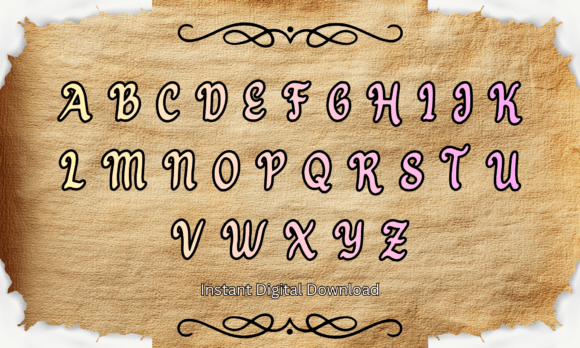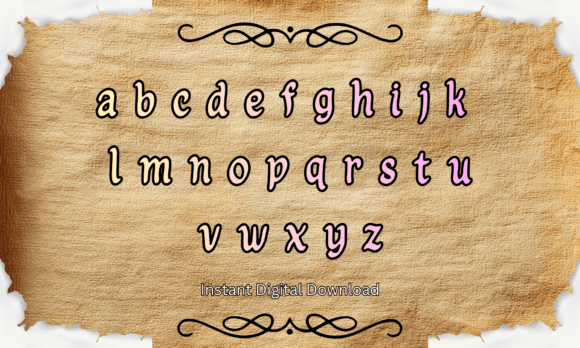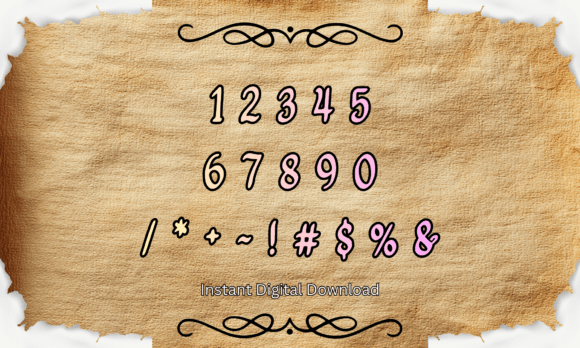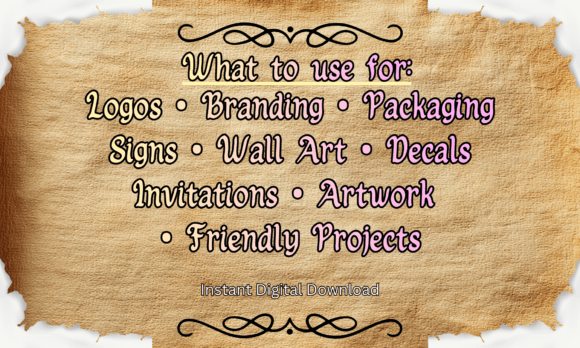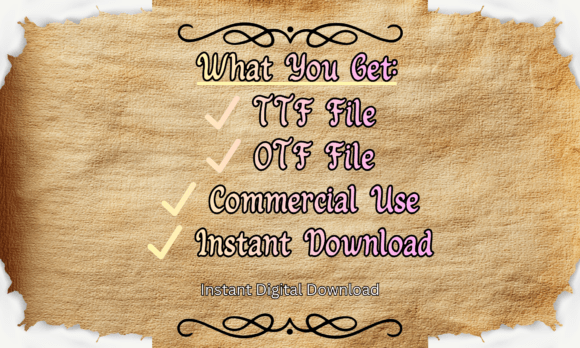
Bring a Touch of Vintage Charm to Your Designs with Antique Scroll Font
Are you looking for a font that can add a soft, vintage charm to your designs? Look no further than Antique Scroll, a playful yet elegant handwritten display font inspired by aged parchment and classic scroll lettering. With its rounded, flowing strokes and gentle curves, this font is perfect for a wide range of creative projects, from logos and branding to stickers, decals, and social media graphics.
Antique Scroll is a versatile font that can be used for a wide range of creative projects, including:
- Logos & branding
- Stickers & decals
- Packaging
- Small business designs
- Invitations
- Wall art
- Cute aesthetic projects
- Handmade product labels
Whether you’re a designer, crafter, or small business owner, Antique Scroll can help you add a touch of vintage charm to your designs.
Font Style
Antique Scroll is a unique font that blends antique elegance with modern, cute aesthetics. Its key features include:
- Vintage parchment inspired
- Soft handwritten feel
- Rounded, playful lettering
- Cute + elegant hybrid style
- Feminine & aesthetic
This font is perfect for creators who want to add a touch of whimsy and charm to their designs.
- Experiment with different sizes: Antique Scroll looks great in a variety of sizes, from small and delicate to large and bold.
- Use for headlines and titles: Antique Scroll is perfect for headlines and titles, where its elegant, cursive style can really shine.